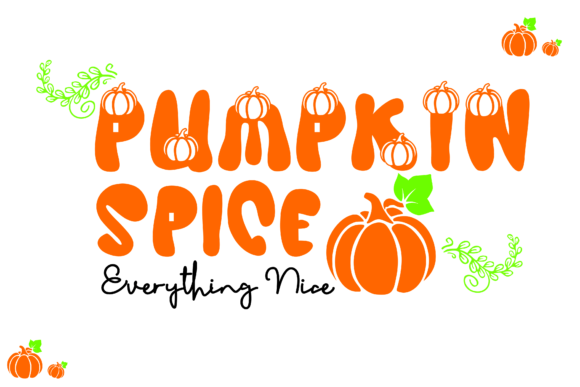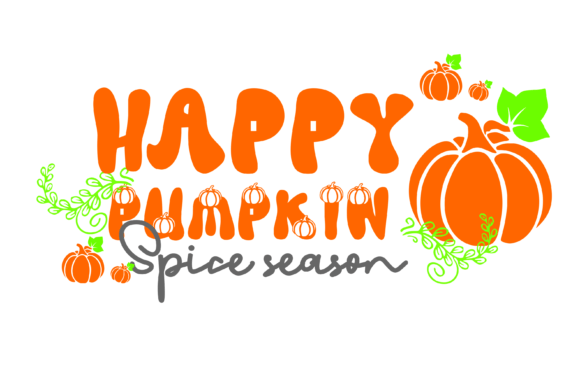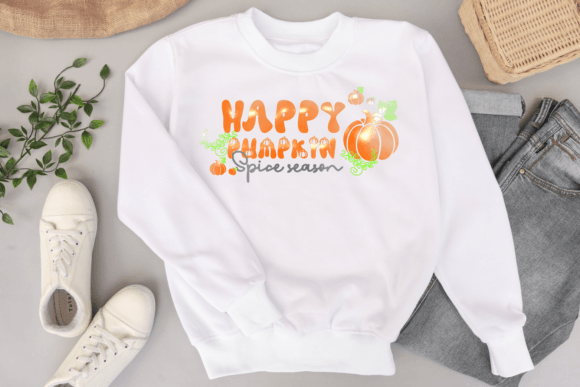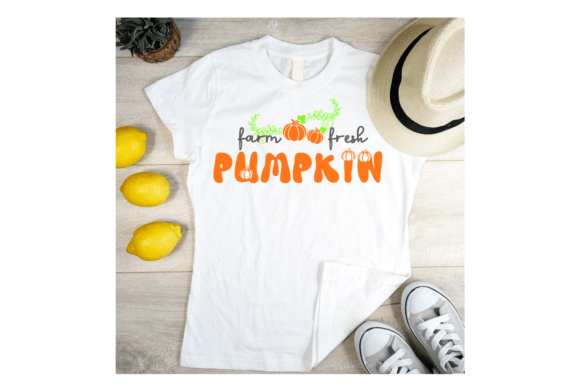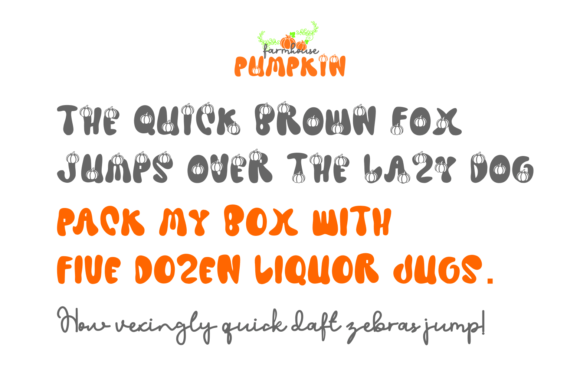
Introduction to Farmhouse Pumpkin Font
Farmhouse Pumpkin is a cute and lovely handwritten font duo (sans and script).
Its casual charm and fun personality are perfect for creating cozy autumn designs .
Key Features of Farmhouse Pumpkin Font